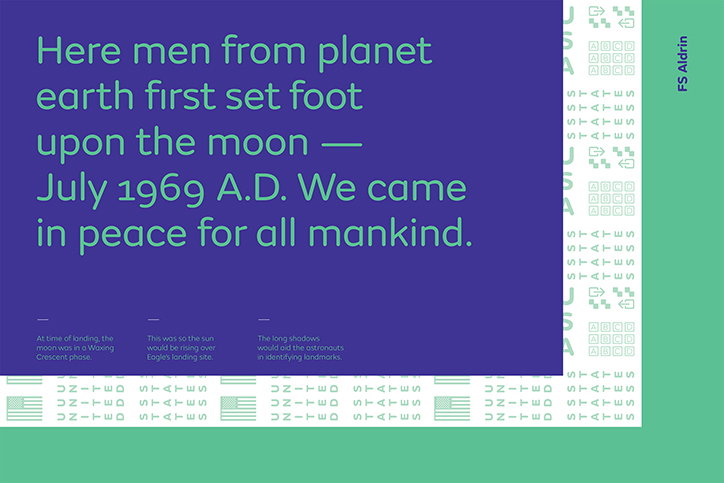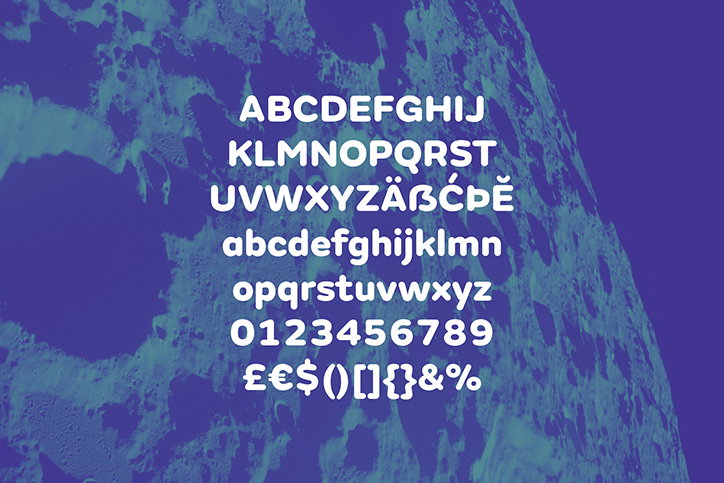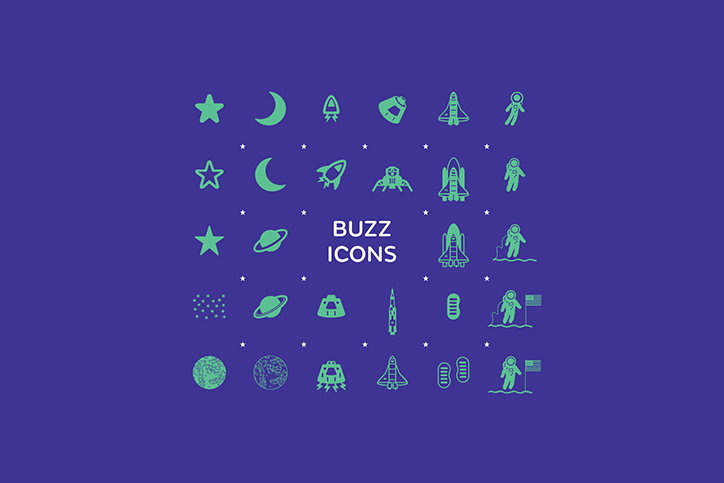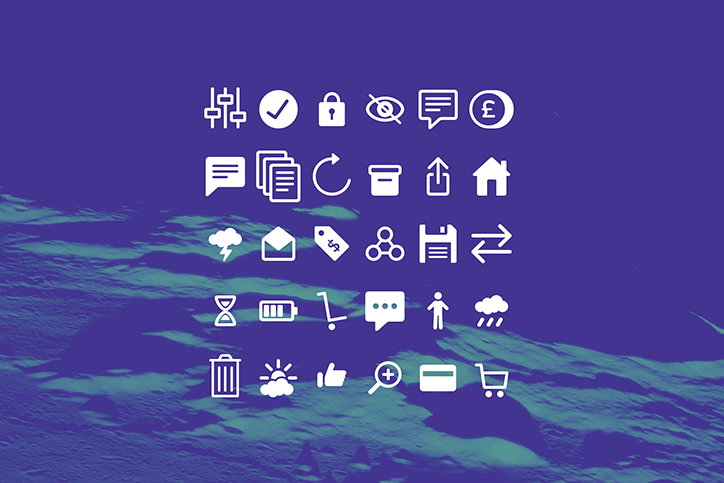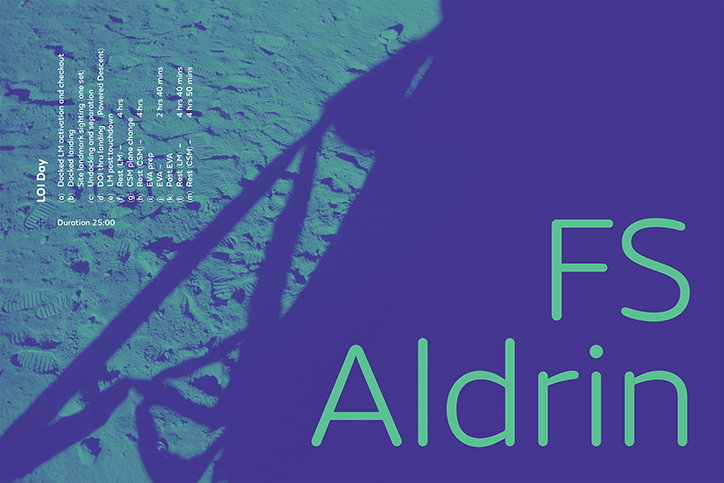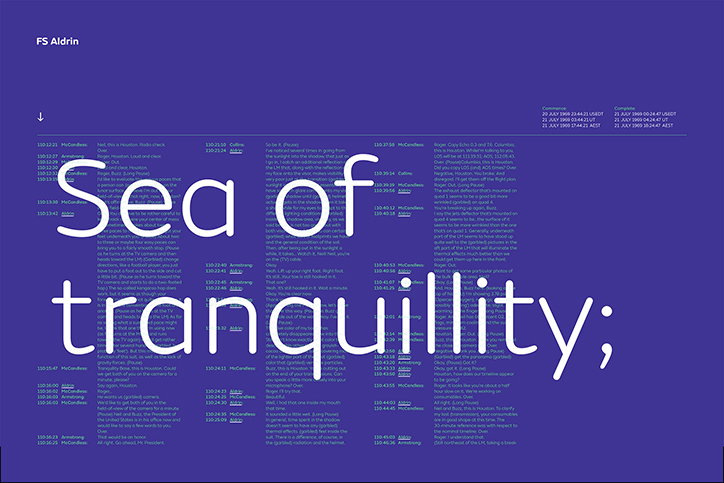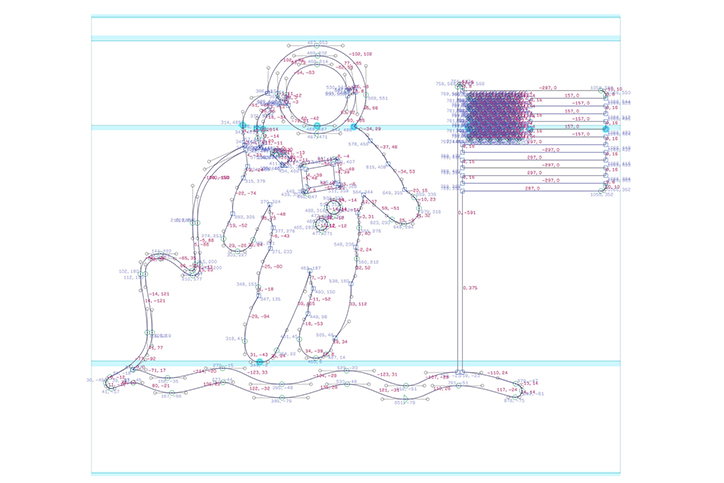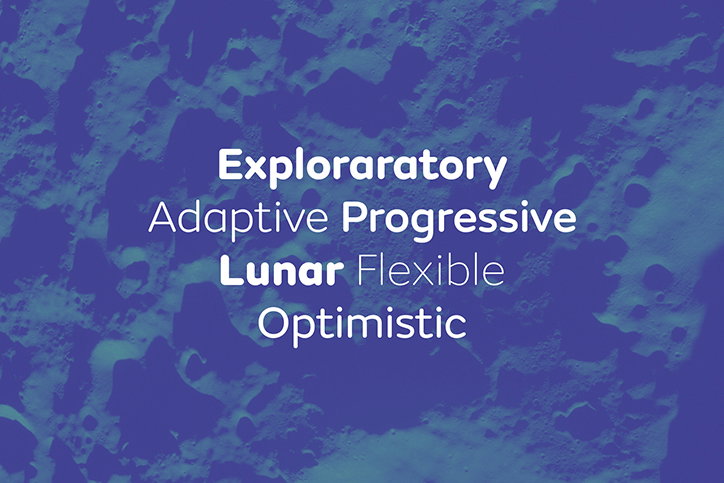
Fontsmith launches FS Aldrin: a typeface endorsed by a real life spaceman
When Fontsmith was developing its new rounded typeface, design director Phil Garnham found his thoughts repeatedly returning to space travel. “The openness of the circular strokes combined with its more technical, crafted aspects made a voice in my head scream space rocket,” says Phil “As a self-confessed space geek, the personality of this font presented a great opportunity to honour one of my boyhood heroes.”
Fontsmith contacted astronaut Buzz Aldrin’s management team to ensure that there were no intellectual property issues that needed to be addressed. Not only was the octogenarian space traveler happy to lend his name to the typeface, he asked if he could use it for the talks and presentations he does. He has even gone so far as to tweet about the typeface.
FS Aldrin is avaialbe in six weights and has a suite of 268 icons – 30 of which are Buzz specials featuring rockets, shuttles and lunar modules, as well as a picture of the astronaut himself.
“I wanted to add a fresh interpretation to the rounded font canon and give FS Emeric a sibling, one with a softer, more amiable character while retaining the family’s astuteness and crispness,” says Phil. "Every curve and transition has been crafted by hand, and that’s what gives FS Aldrin its unique strength. Unlike the majority of new rounded fonts there are no scripts at work here.”